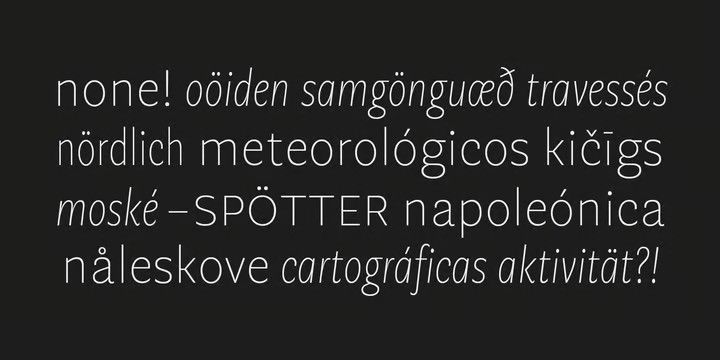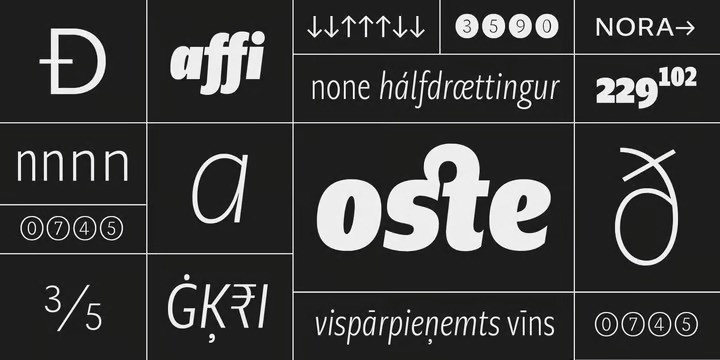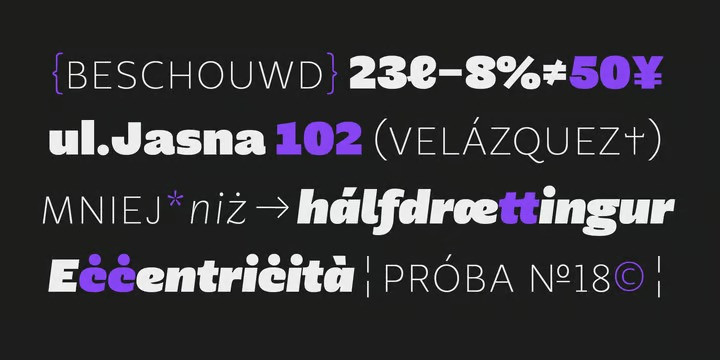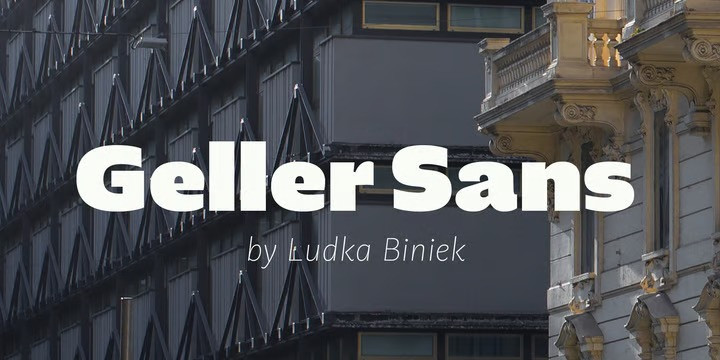
Geller Sans Font Family
Geller Sans Font is a modern sans serif font crafted & designed by Ludka Biniek. It’s like a basic T-shirt, perfect for every task and need. Looking at thin–extraheavy styles font has enough of charm to stand out in advertisement. It’s able to meet demand of complex design tasks. Entire font family comes in 4 width (Regular, Narrow, Condensed, Compressed). Each width finds its best application in different typographic fractions what makes Geller Sans easy to apply in editorial graphic design.